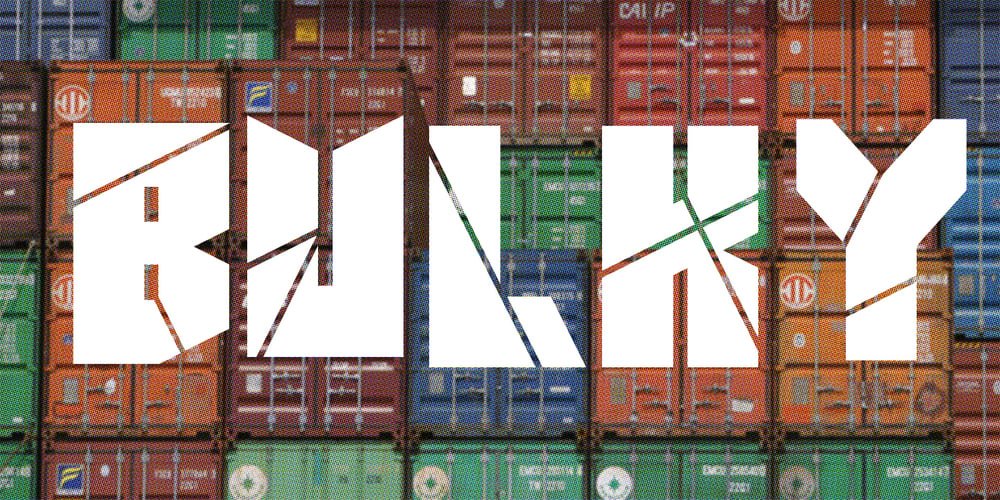
AT Move Bulky Font Family was designed by André Toet, Jasper Nijssen and published by André Toet Design. AT Move Bulky contains 1 styles and family package options. BULKY is the 19th Font of André Toet. It’s Unusual, it’s Heavy, it’s Irregular, it’s Rough, it’s Stripy, it’s Angular, it’s BULKY. But it has character and extremely useful for headings, posters and even logotypes. Just-Use-It! Concept/Art Direction/Design: André Toet © 2017